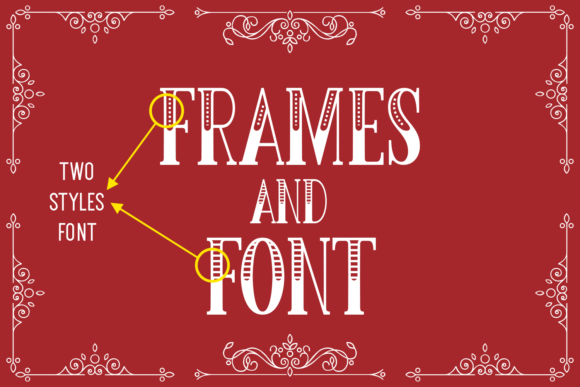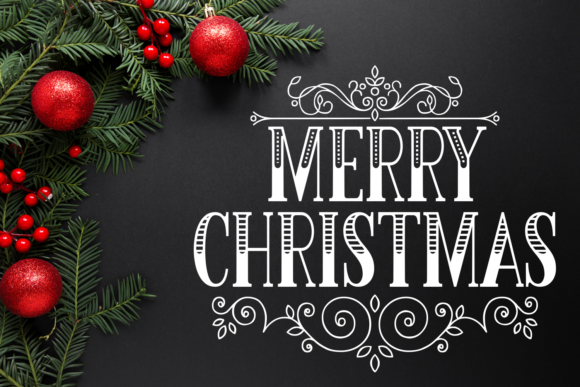
Christmas Memories Font
Christmas Memories is a beautiful display font. It features a gorgeous style and it brings two different kind of dingbats that will add a special touch to your Christmas projects!This amazing font is exclusive from Creative Fabrica!